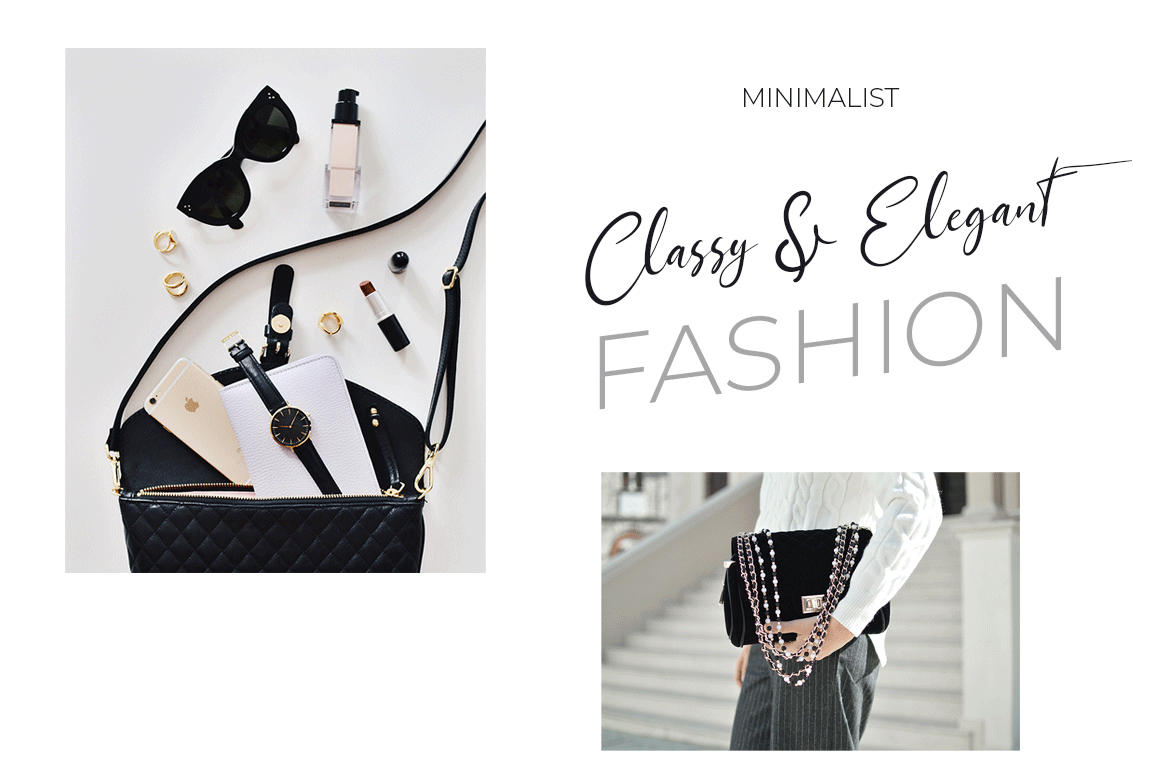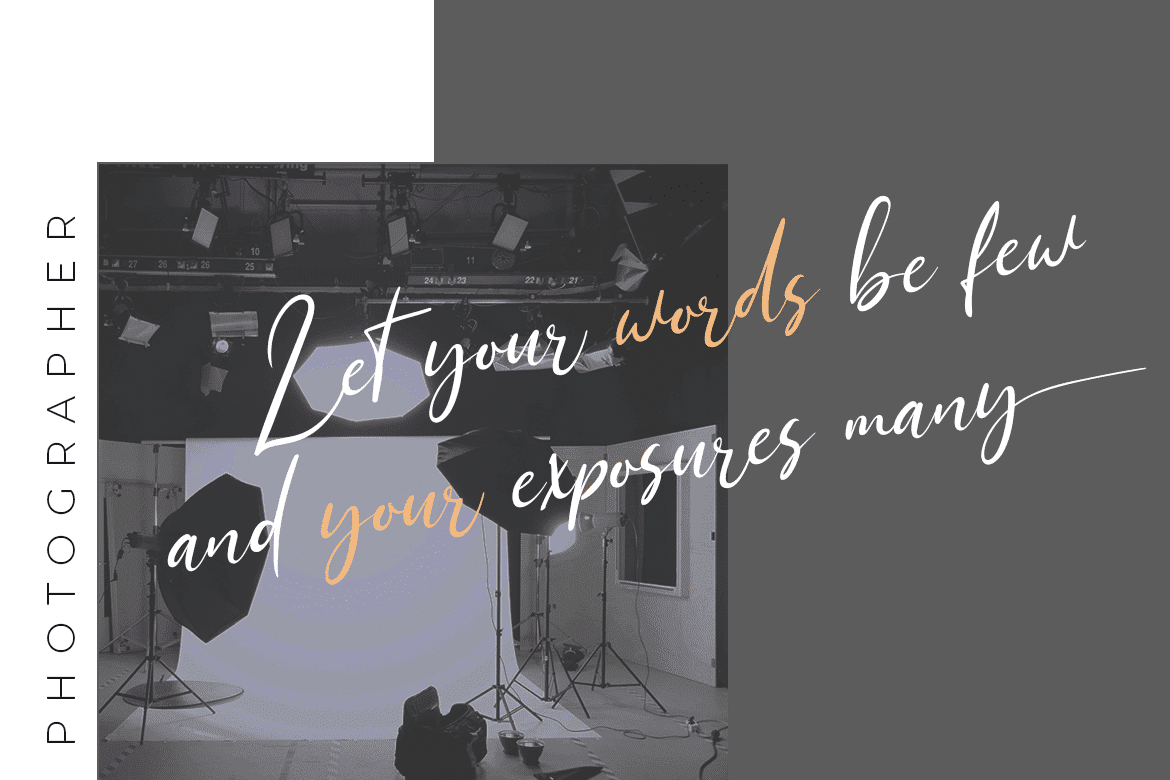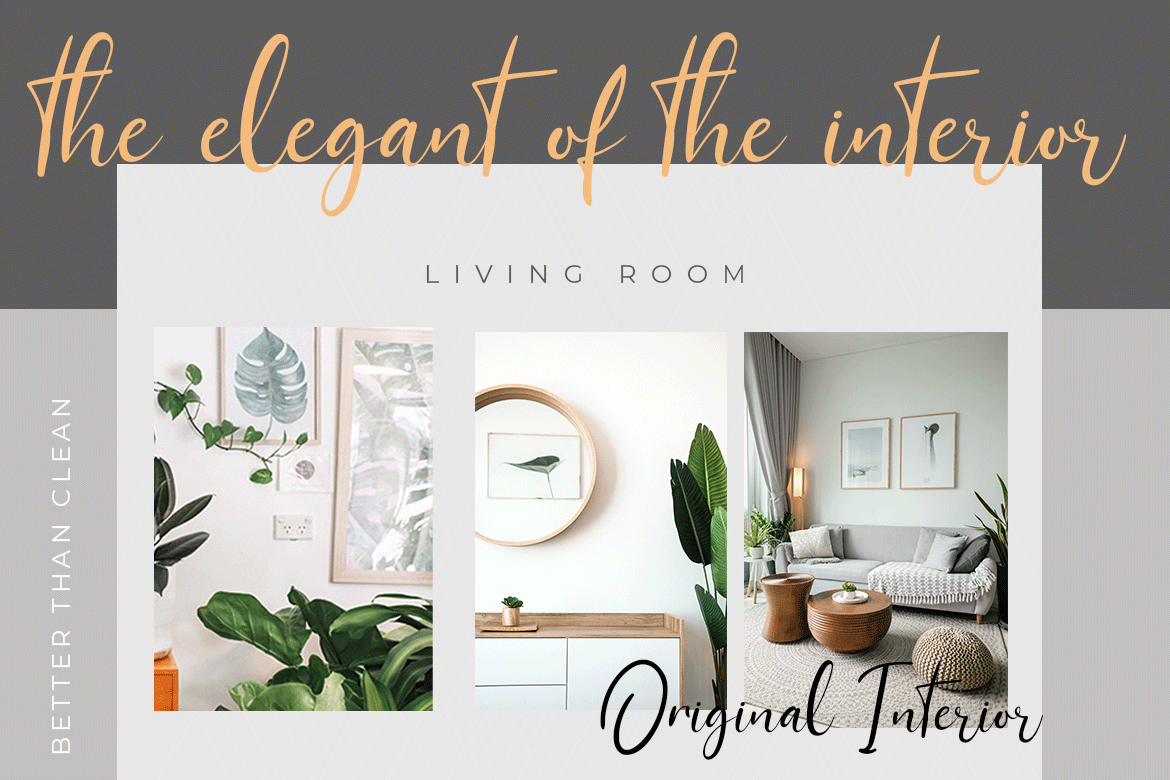
Sethasso Font
Sethasso, clean simple, and elegant themed Signature Font, which is written in natural hand strokes making this font more charismatic natural. This font in addition to having a charming and unique shape is also equipped with various alternative options that make it easier for you to create beautiful and extraordinary designs.